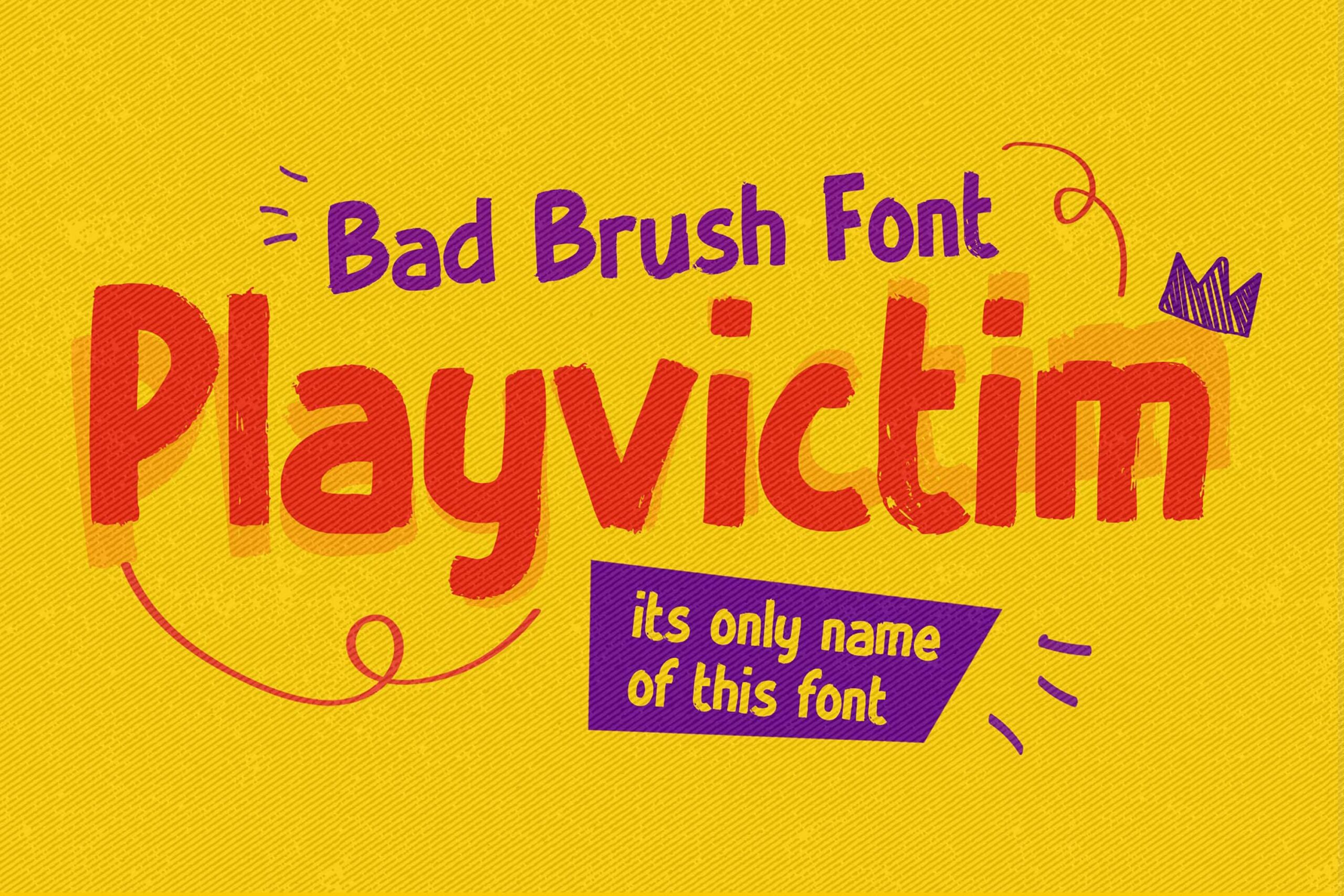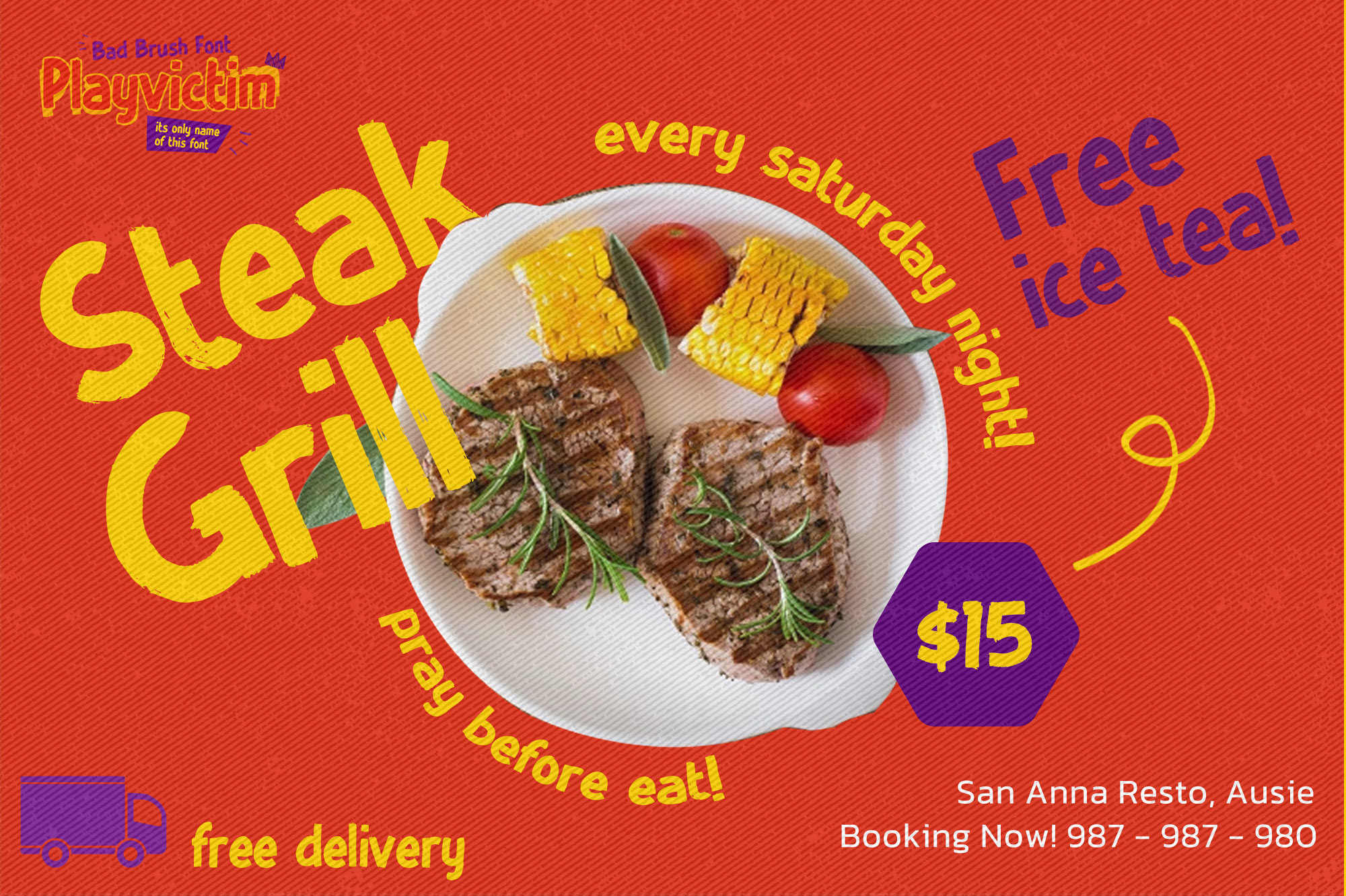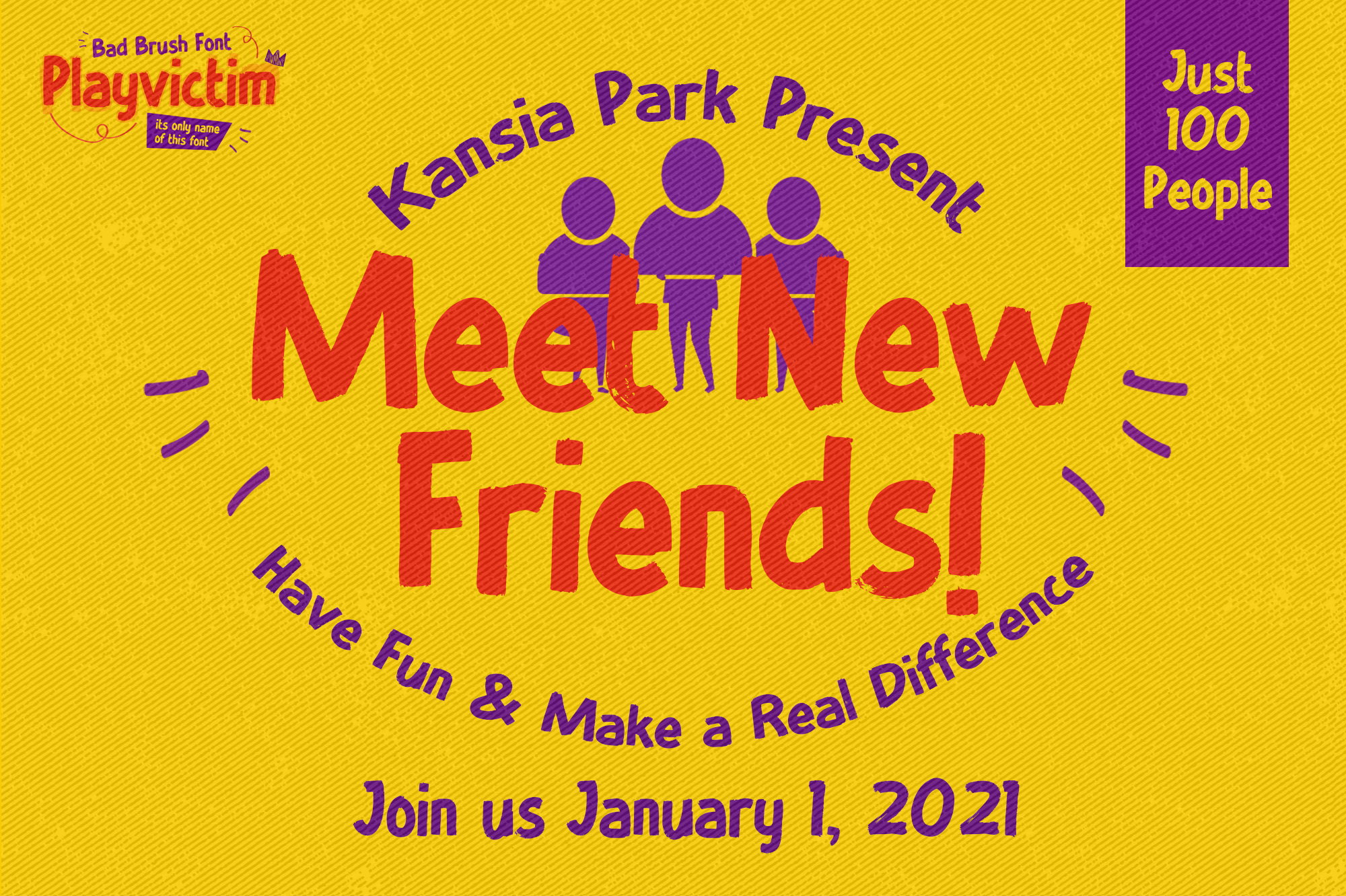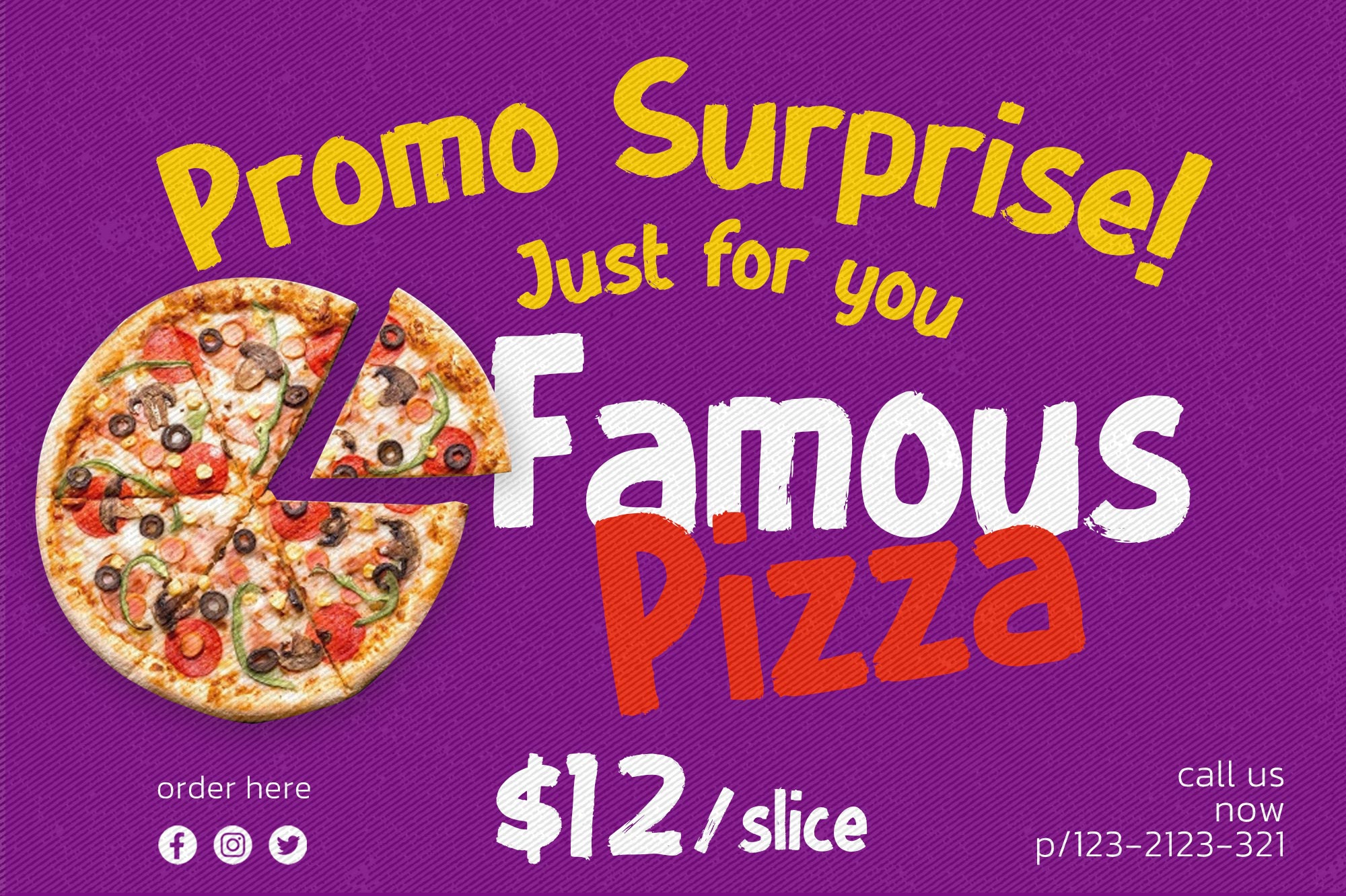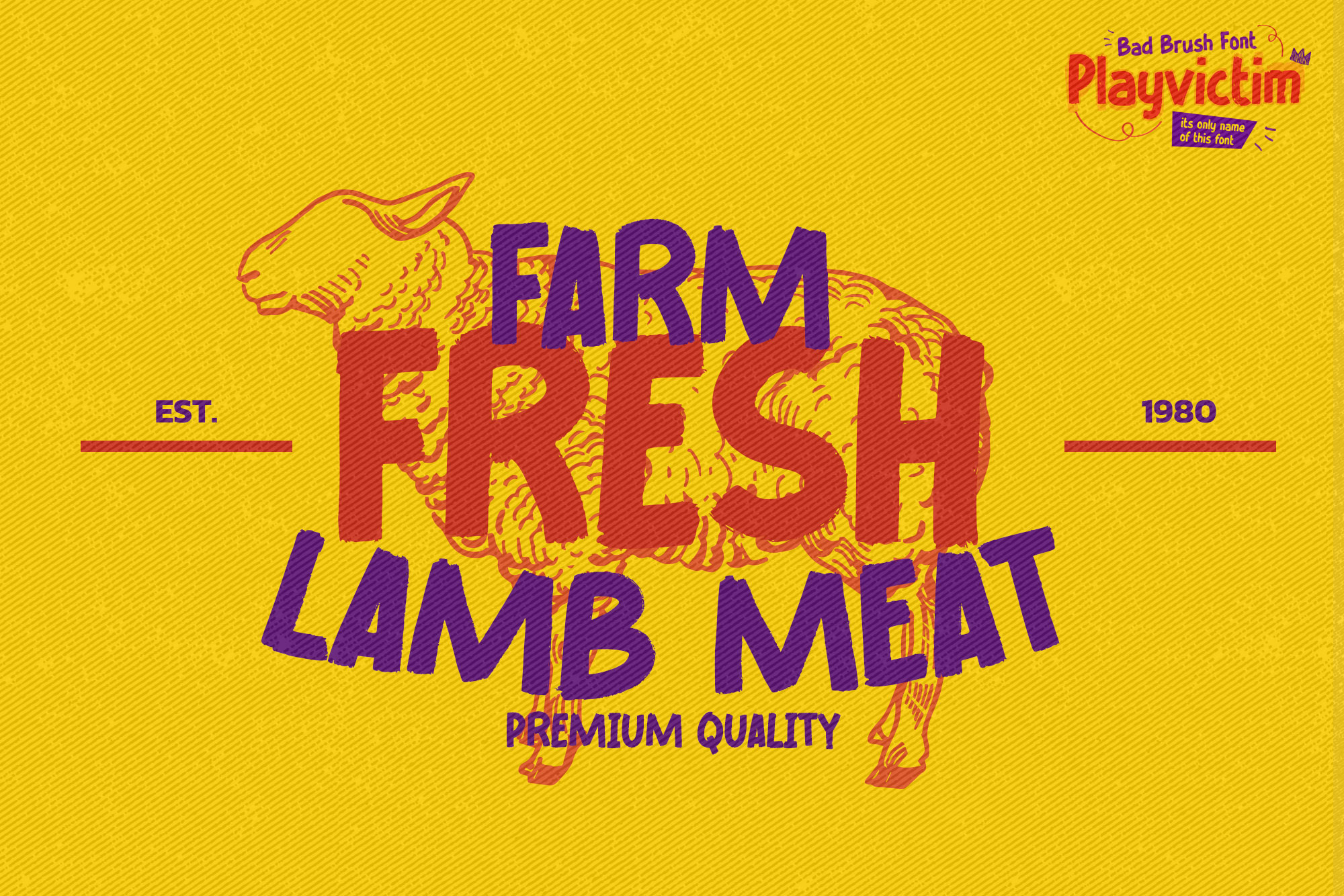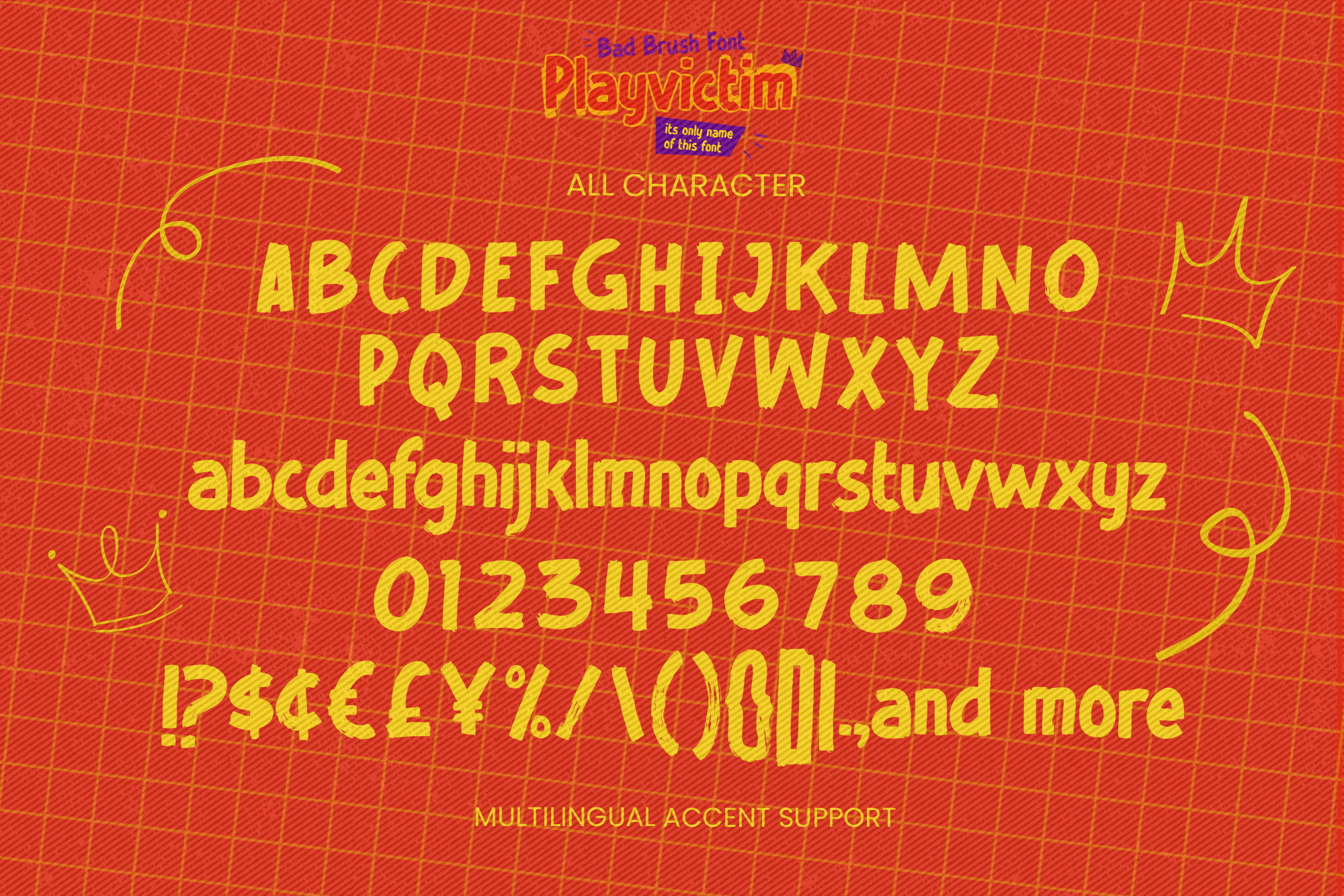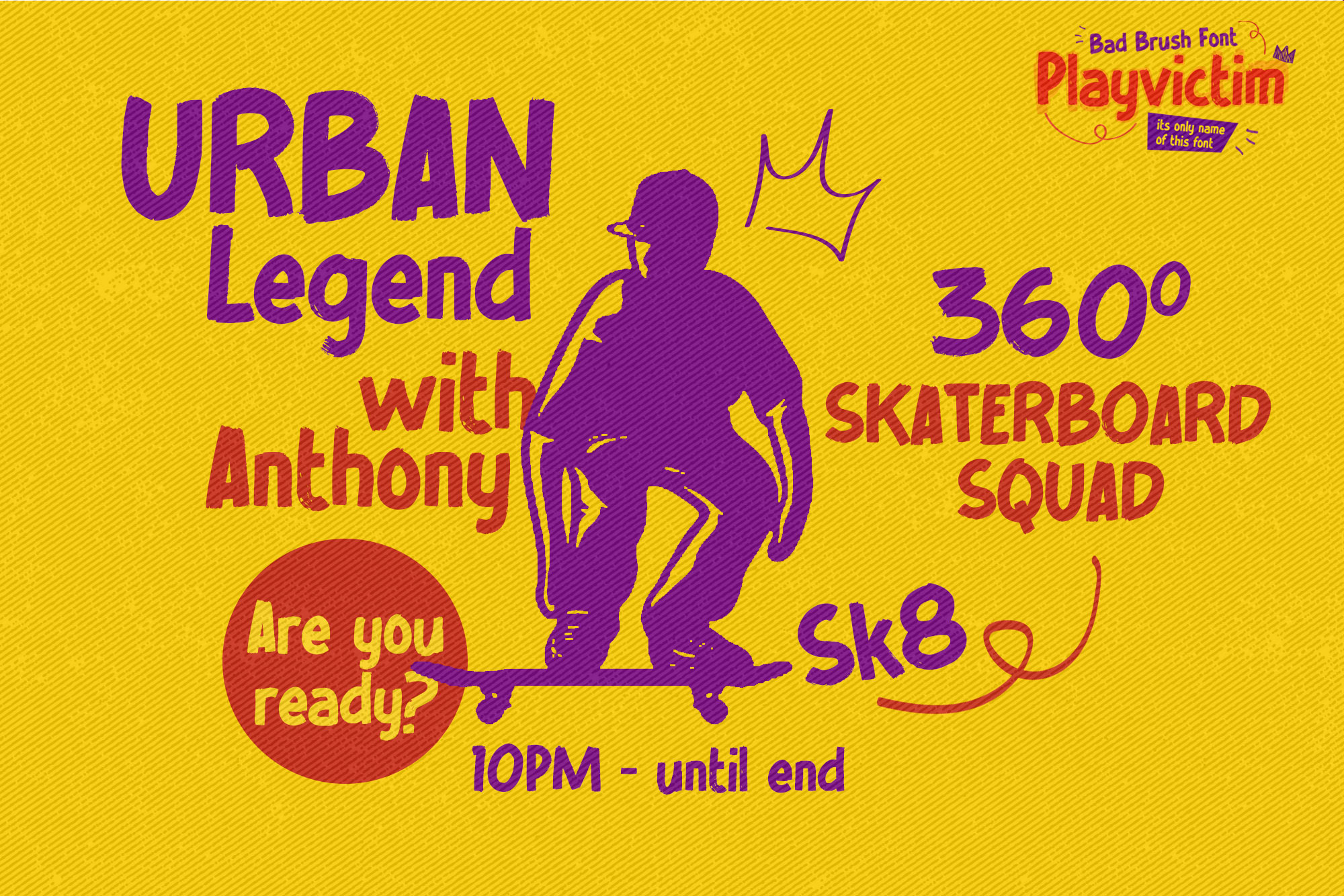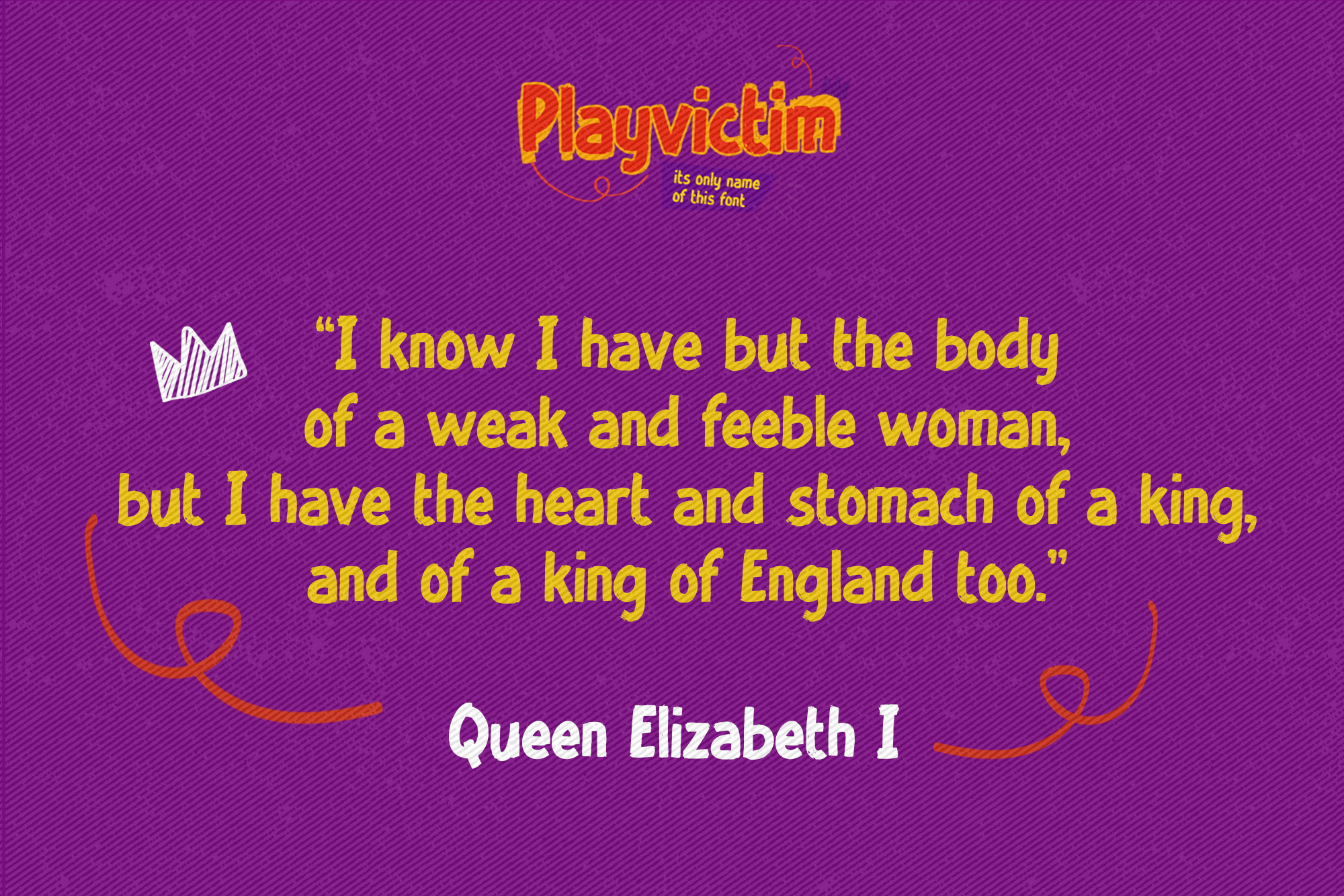
Playvictim – Bad Brush Font, modern style and dramatic movement that is written casually and quickly.
The best for labels,poster,project , designs look modern, authentic and fun. It’s perfect for labels, quotes, posters, DIY projects, branding, packaging, greeting cards, websites, photography overlays, signs, scrapbooking, tags and so much more! That is why Playvictim has a brush, and strong characteristic more natural look.